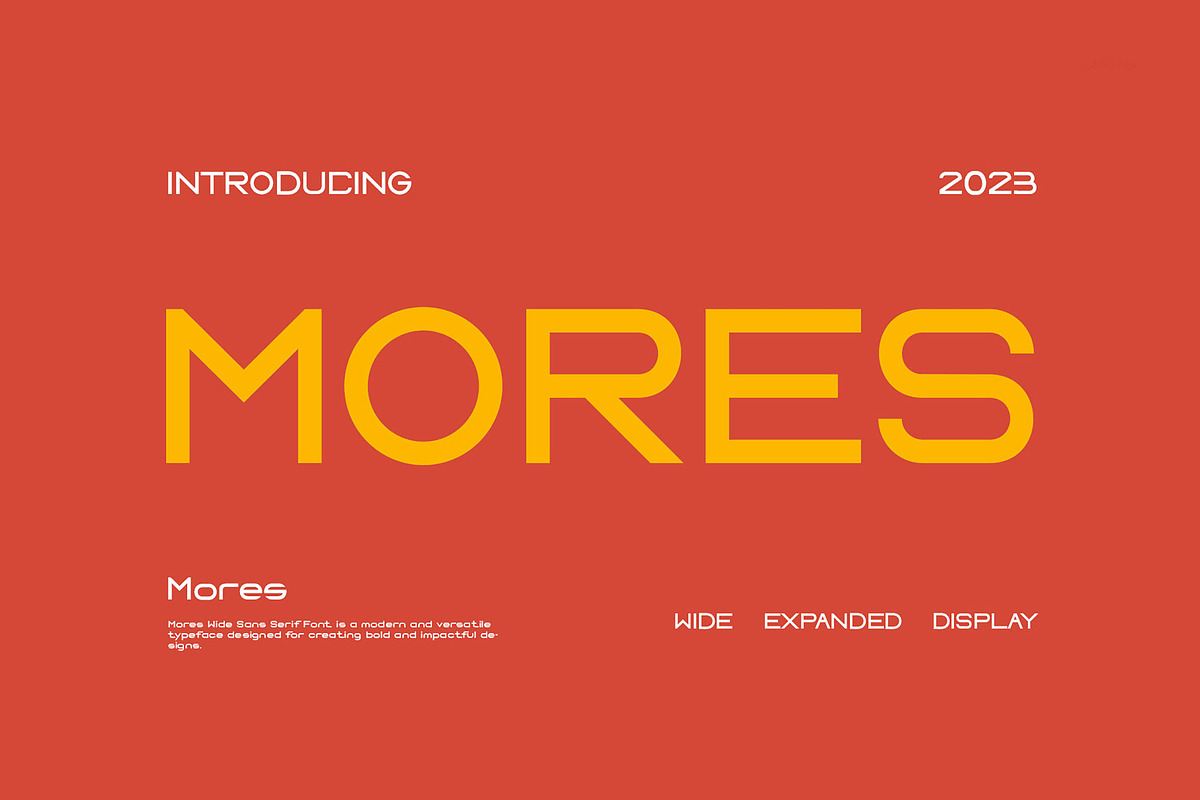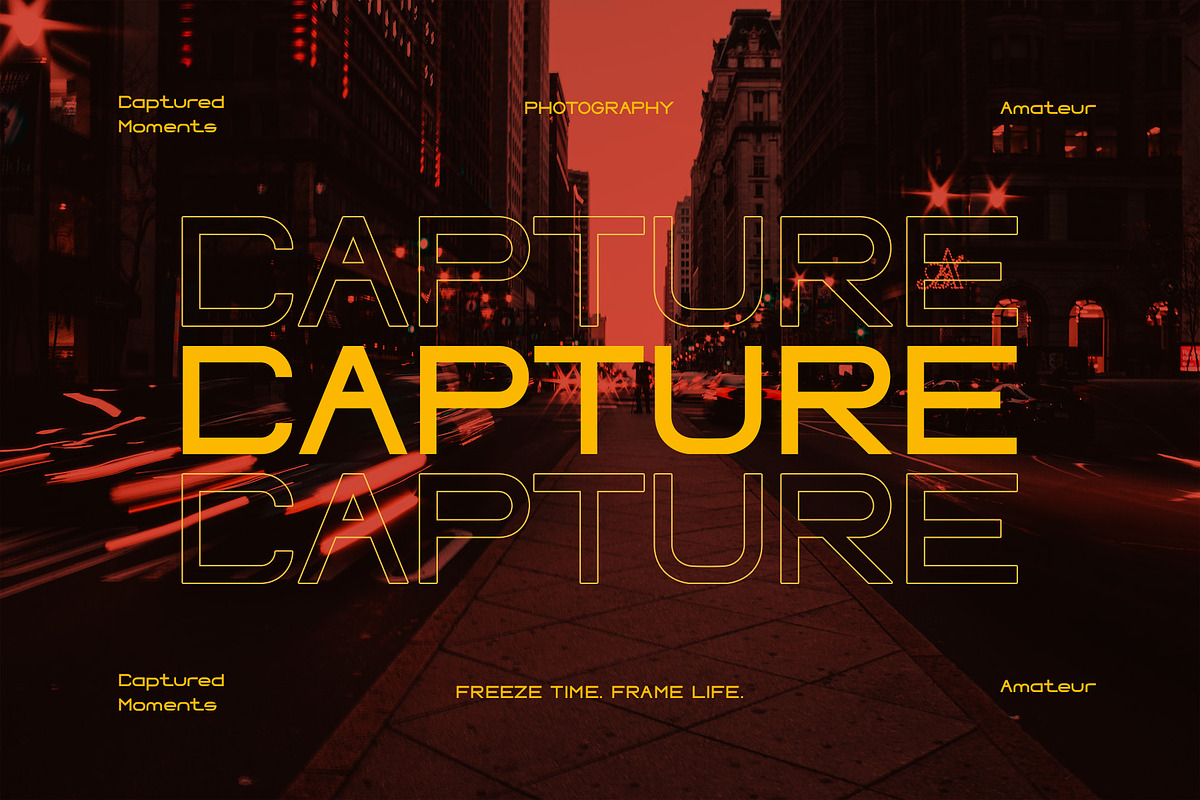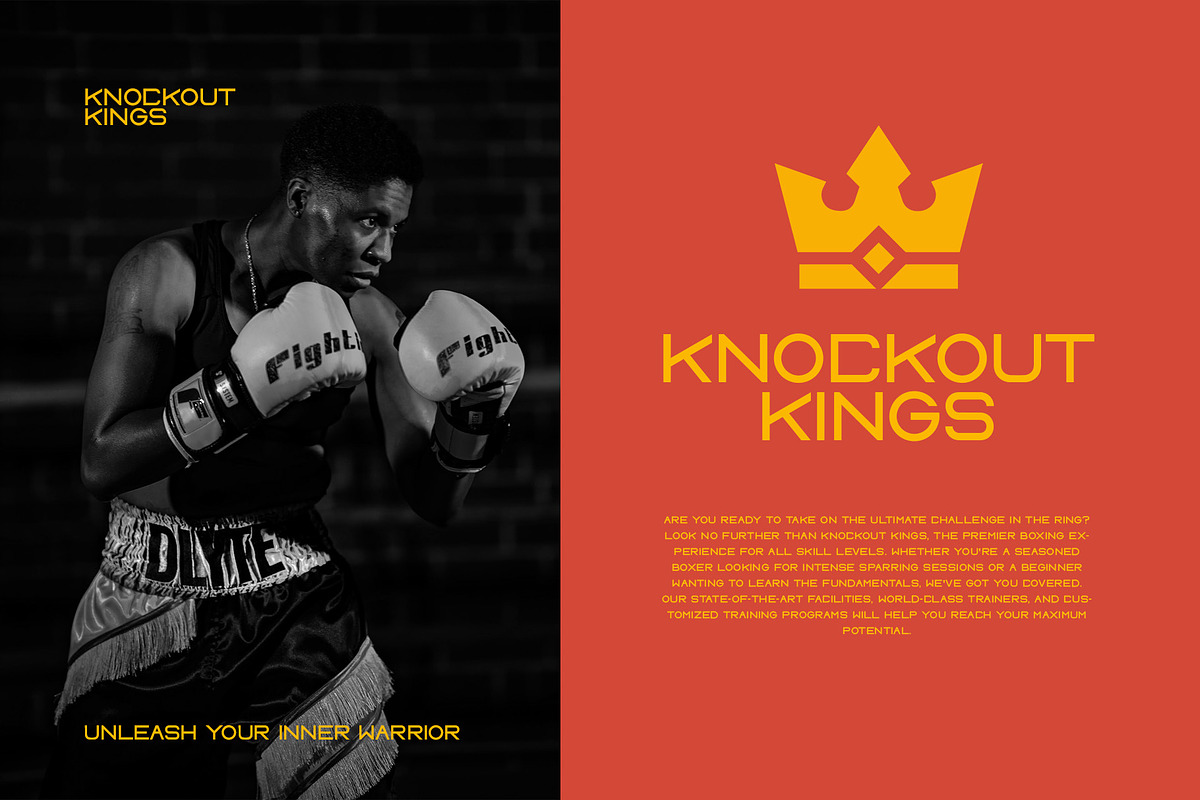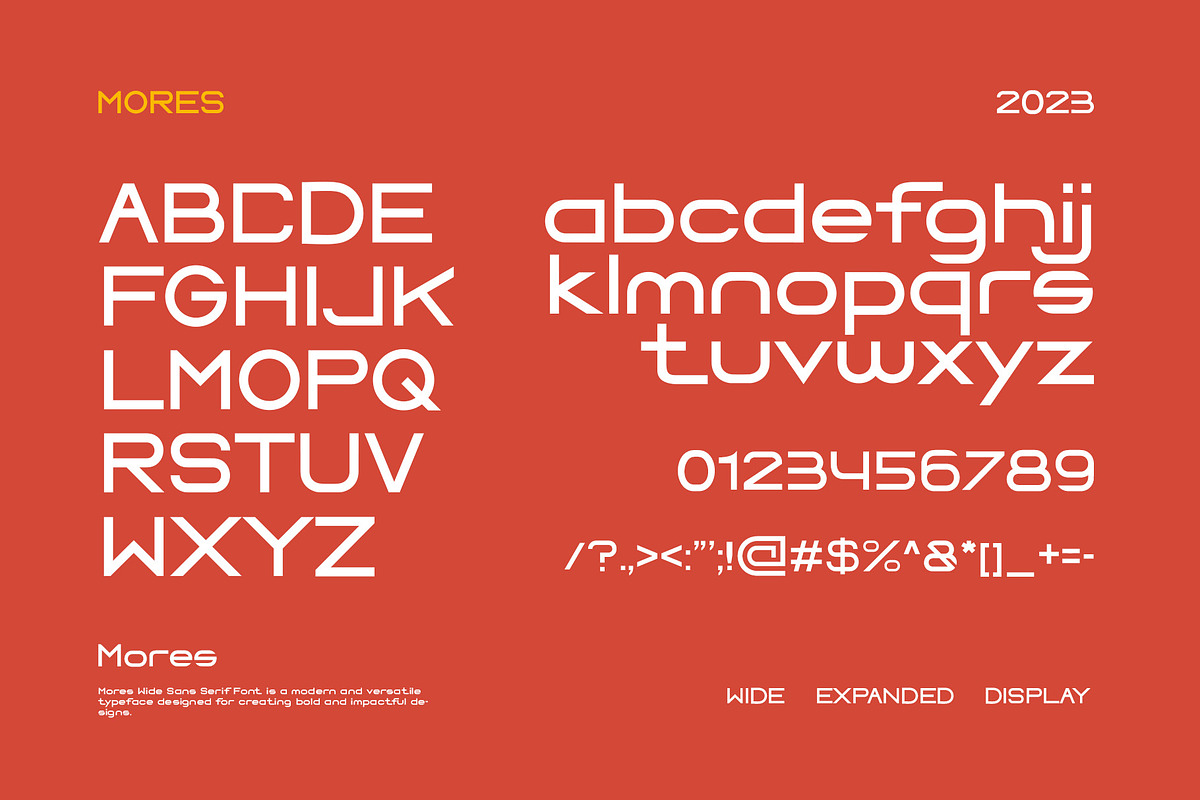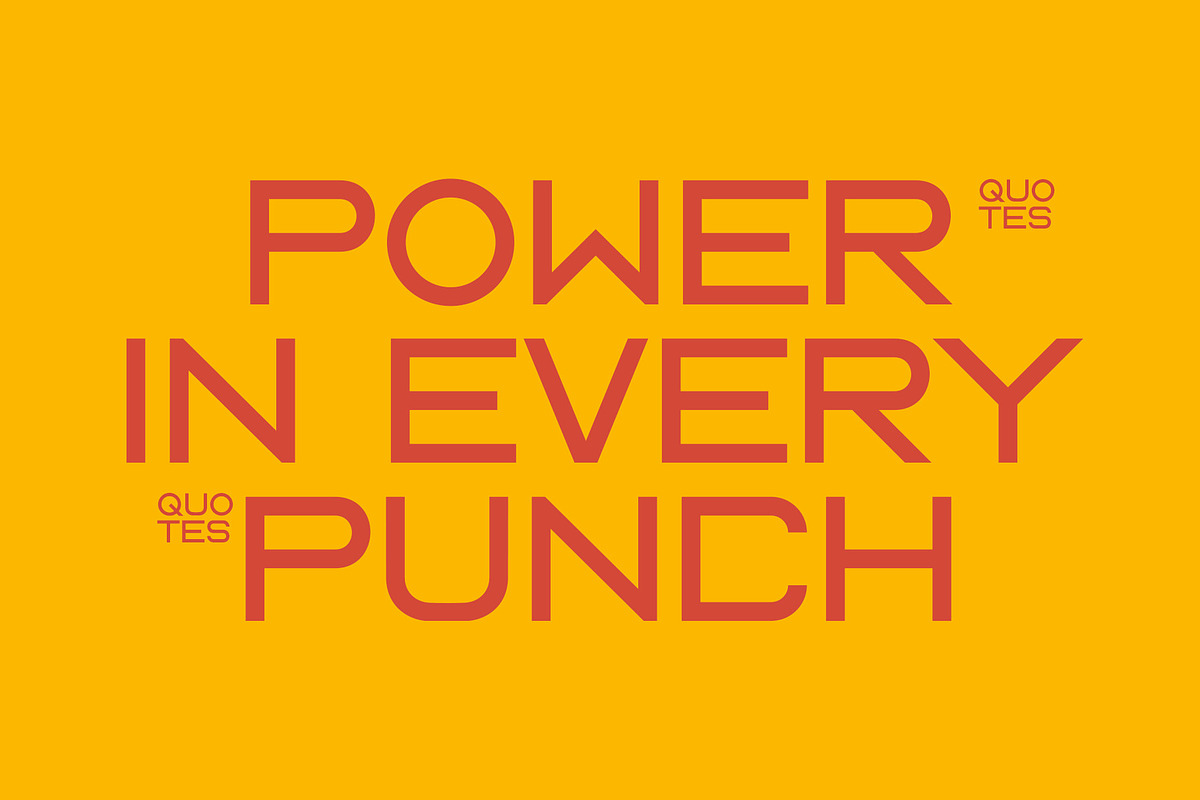
Mores - Modern Wide Sans Serif
Introducing our new Mores, modern sans serif font with elegant style this is perfect for branding, logos, invitation, magazines, product packaging and more.